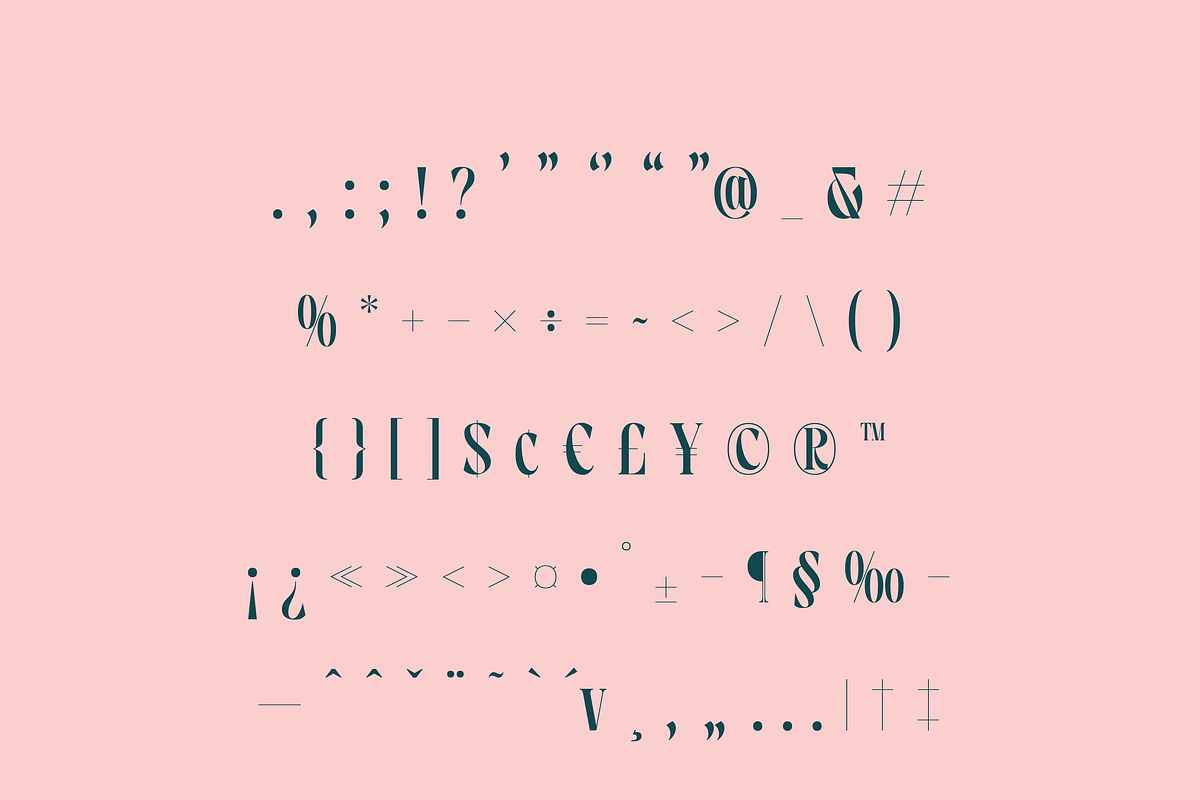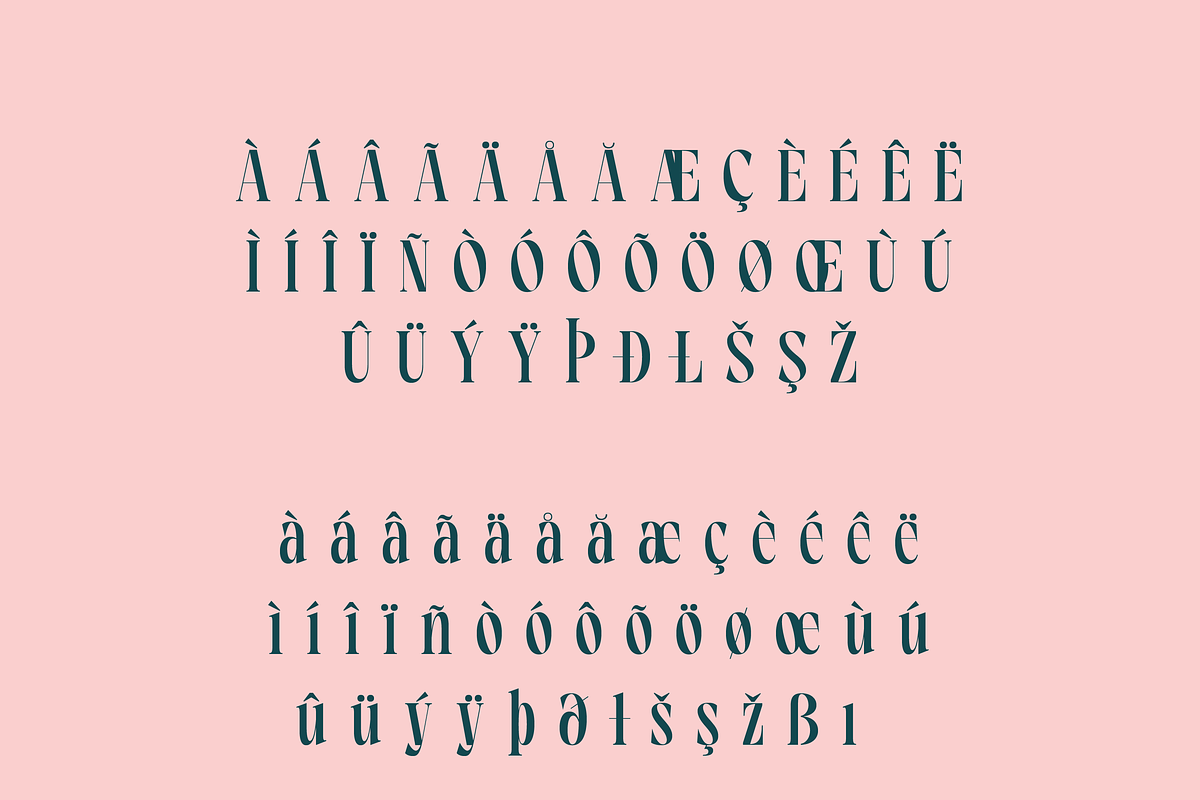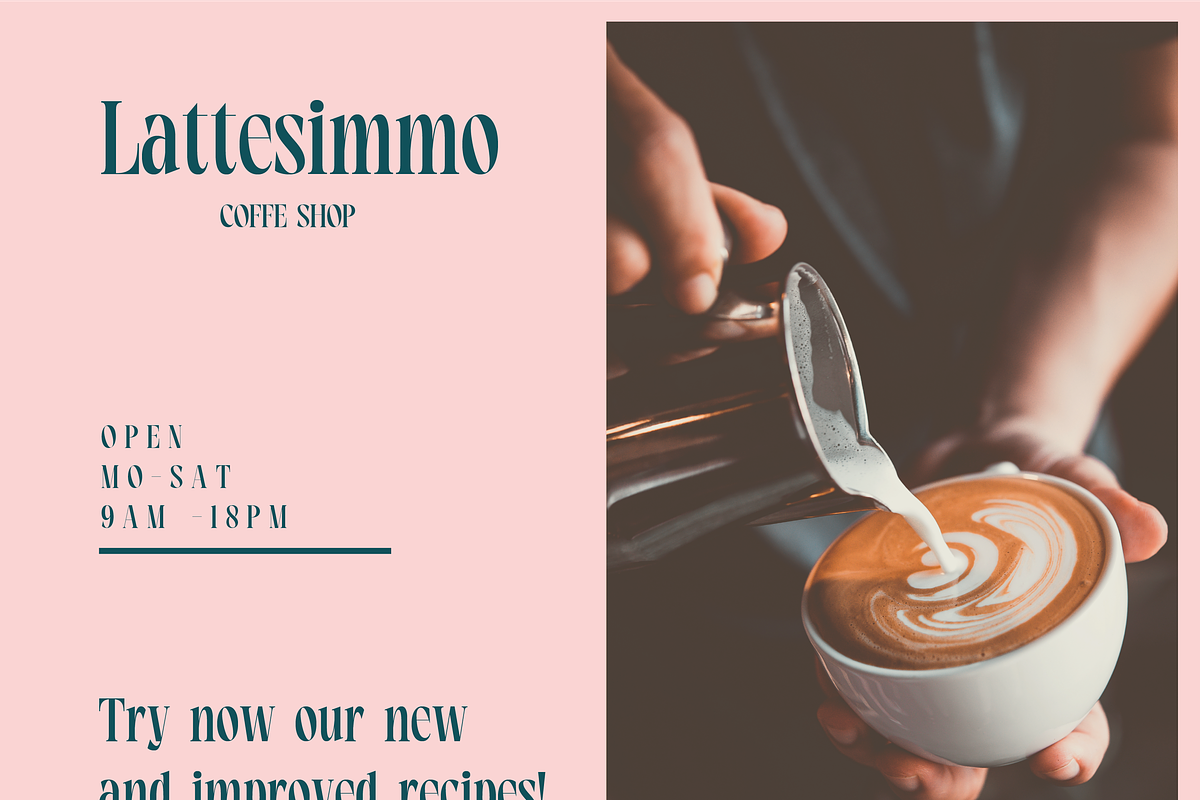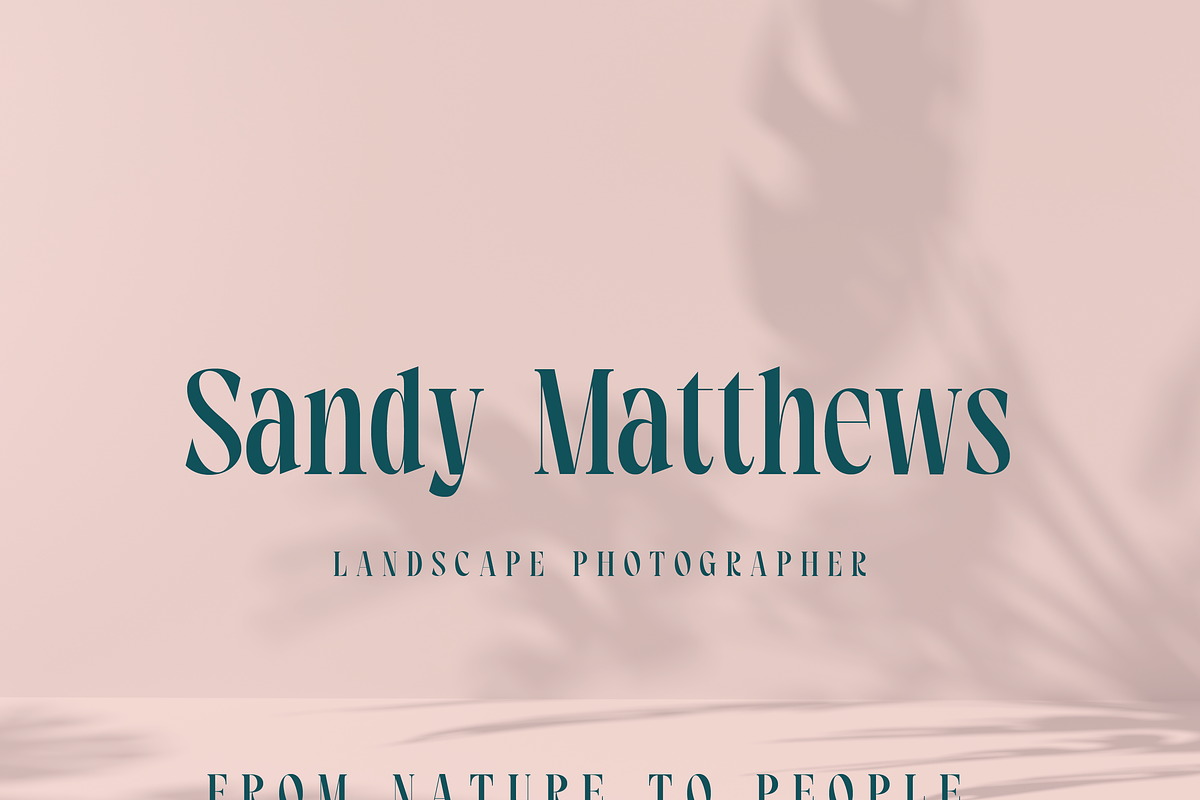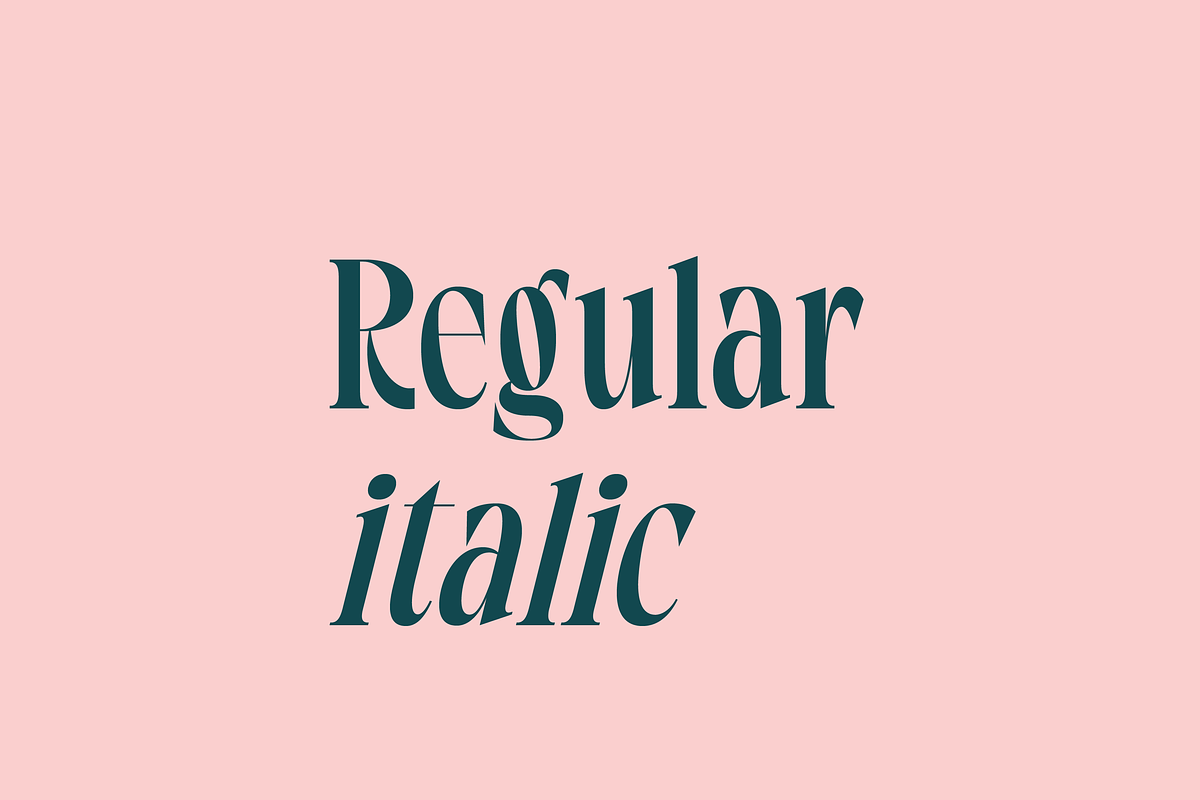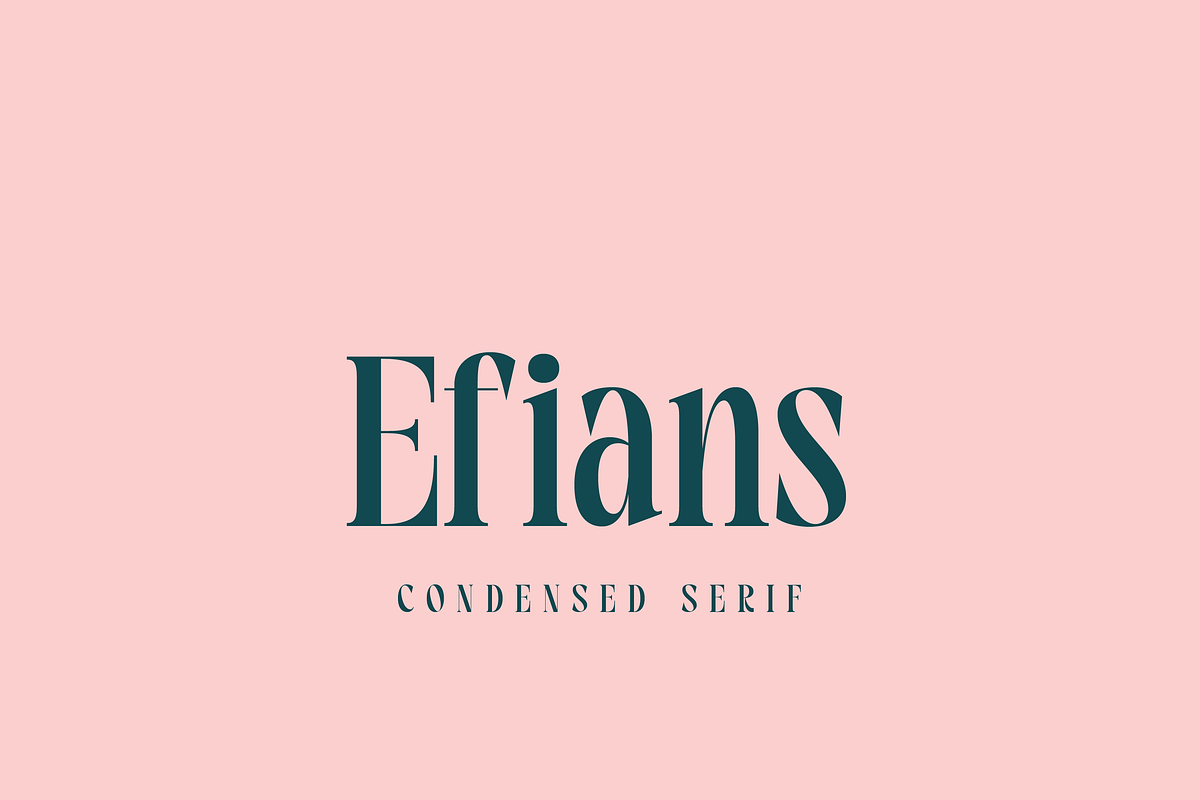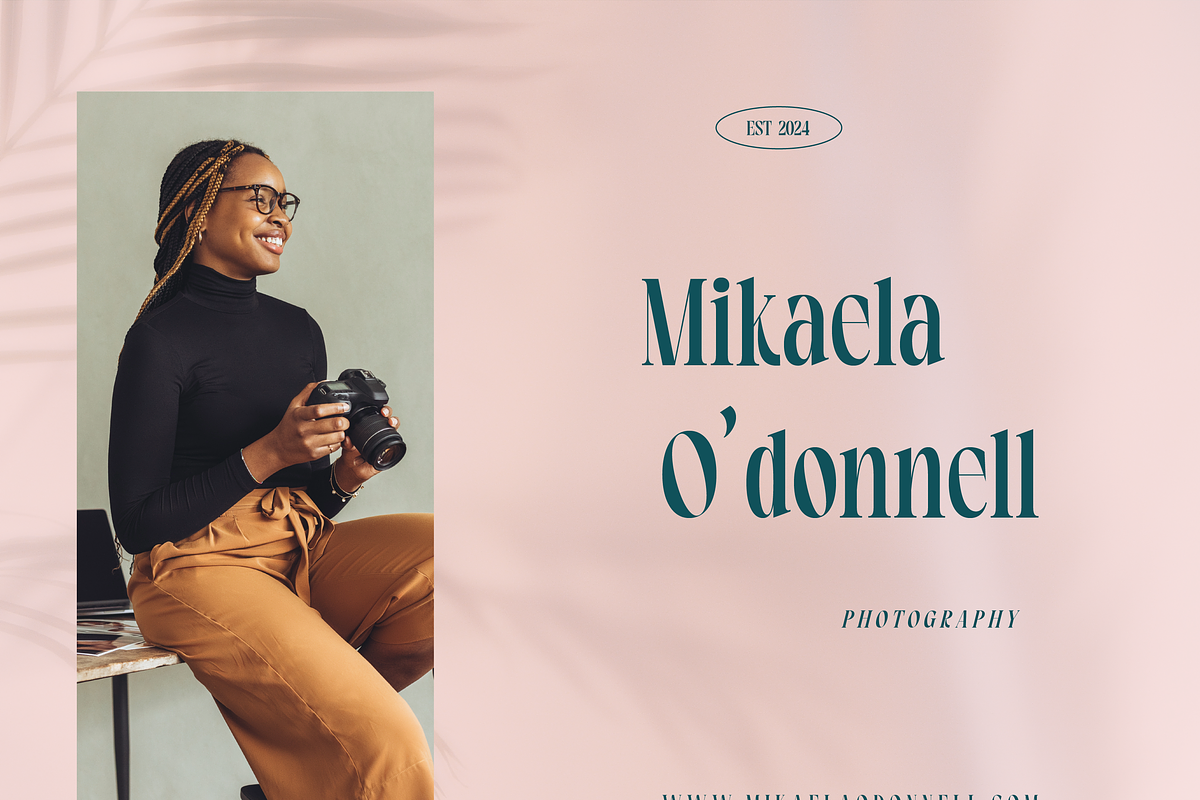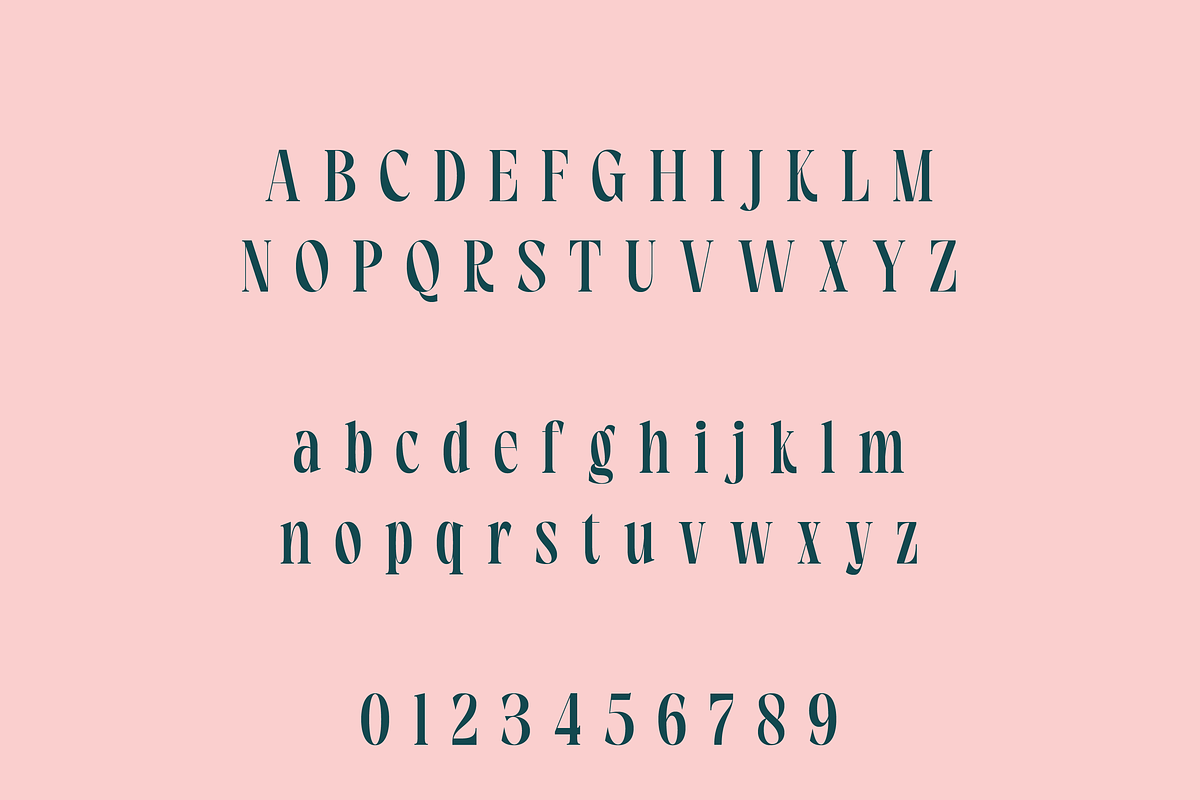
Efians – A Timeless Serif
Efians – A Timeless Serif for Elegant Designs
Efians is a sophisticated serif font family designed to bring luxury and refinement to your projects. With its classic yet modern appeal, this typeface is perfect for logos, branding, packaging, invitations, apparel, and more.
Key Features: • Elegant Serif Style – A harmonious blend of tradition and contemporary design. • Versatile Applications – Ideal for stationery, book covers, posters, and product labels. • Refined Letterforms – Designed for both readability and aesthetic appeal. • Luxury & Sophistication – Elevate your designs with effortless elegance.
Enhance your projects with the timeless beauty of Efians, where grace and versatility come together seamlessly.